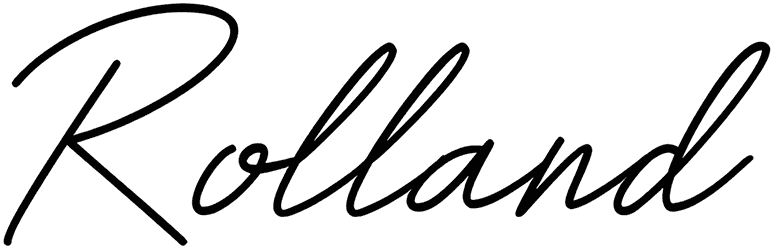
Rolland Font
No one can deny the effect that a handwritten text has on people, and Rolland will do this. This handwritten font has a matey and fresh mood and will make your design gorgeous. There is no punctuation, but it can still be used for any short or long text, and display any projects like logos, invitation cards, fashion designs, and more, in the best way.